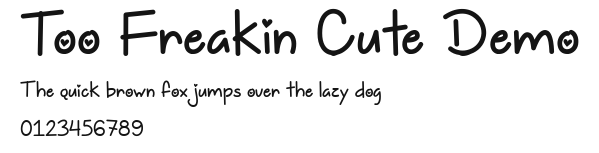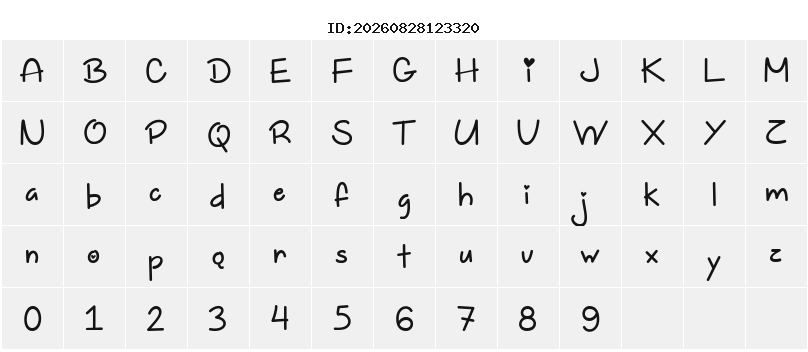
• Font Name: Too Freakin Cute Demo
• Designer: Misti's Fonts
Too Freakin Cute Demo.ttf is a modern, elegant sans-serif font designed for ultimate readability and visual harmony. Perfect for branding, headlines, web design, and print materials.